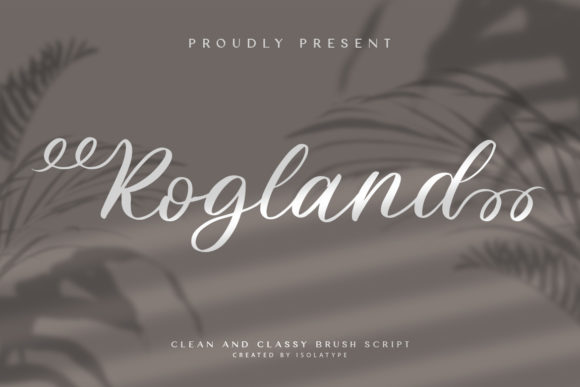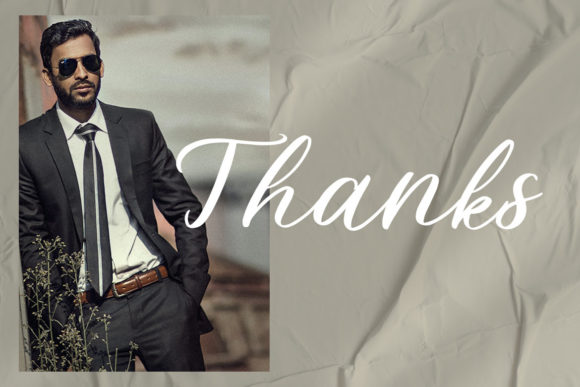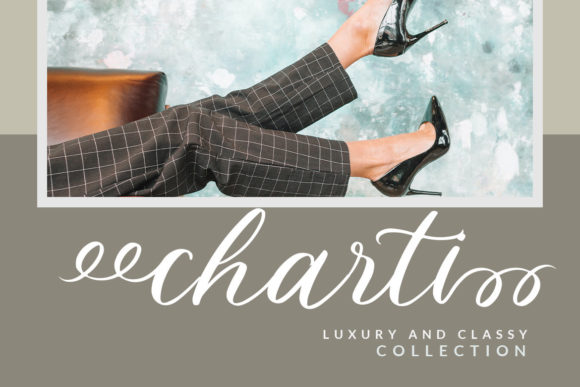
About Rogland Font
Rogland feels equally charming and elegant. It looks beautiful on wedding invitations, thank you cards, quotes, greeting cards, logos, business cards and every other design which needs a customized touch.